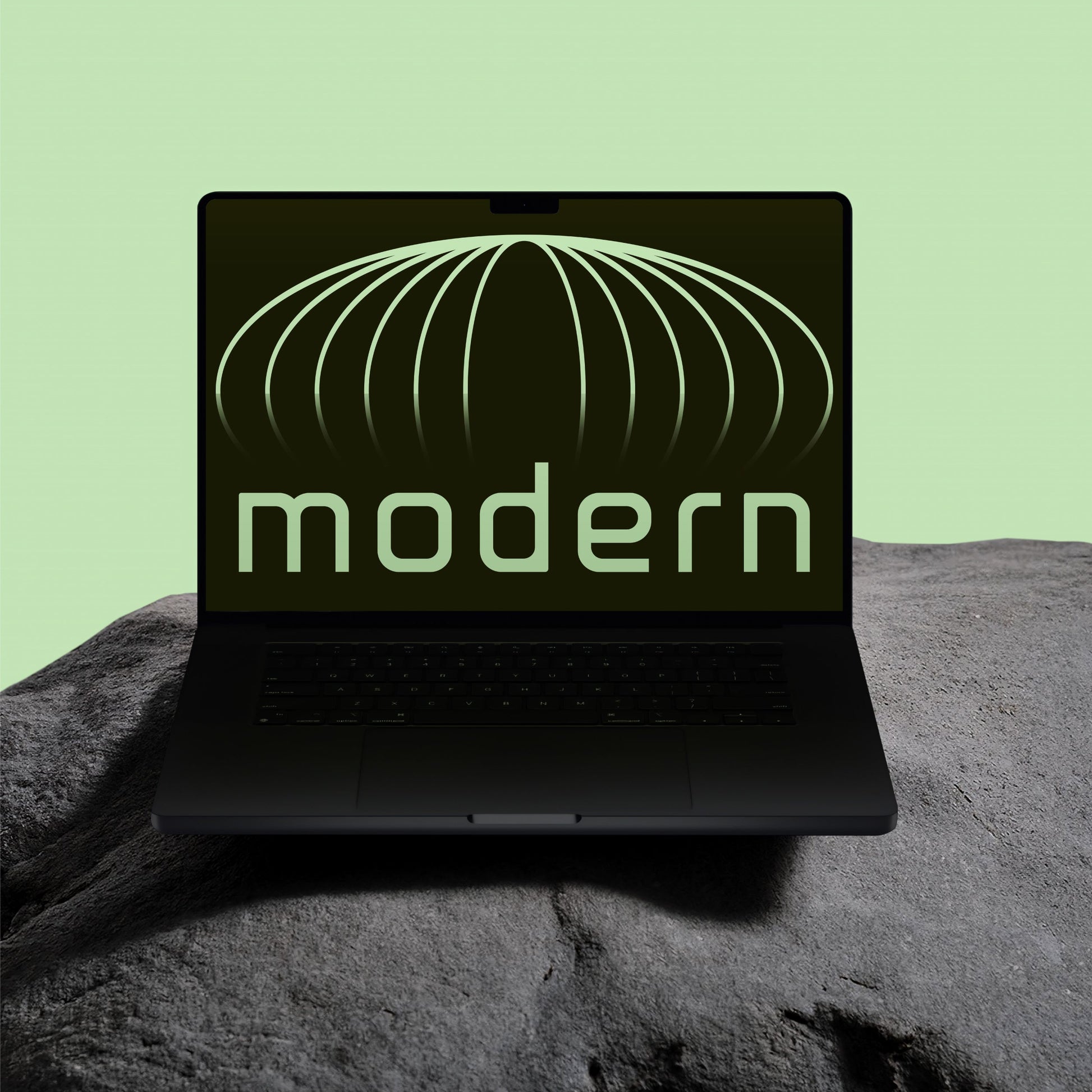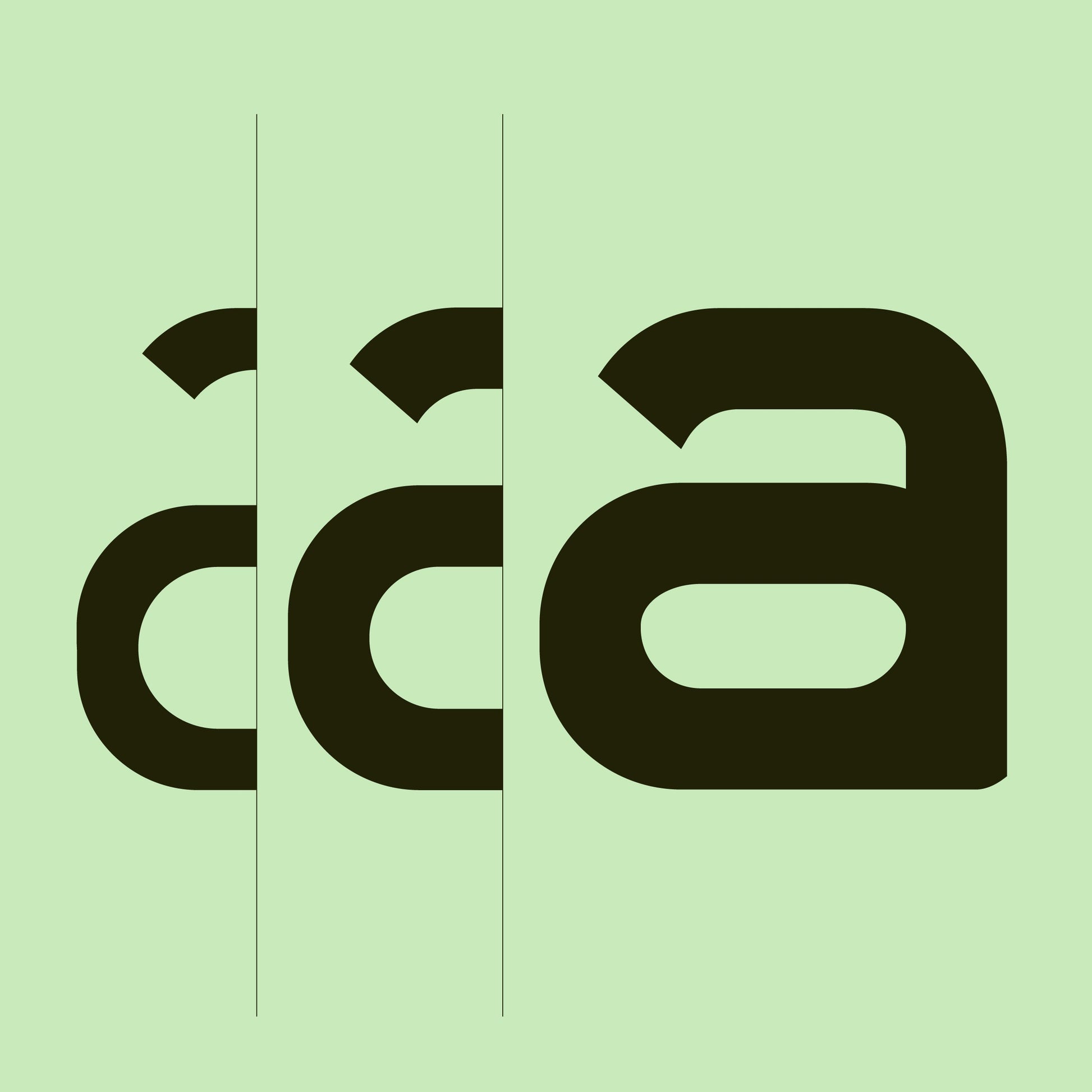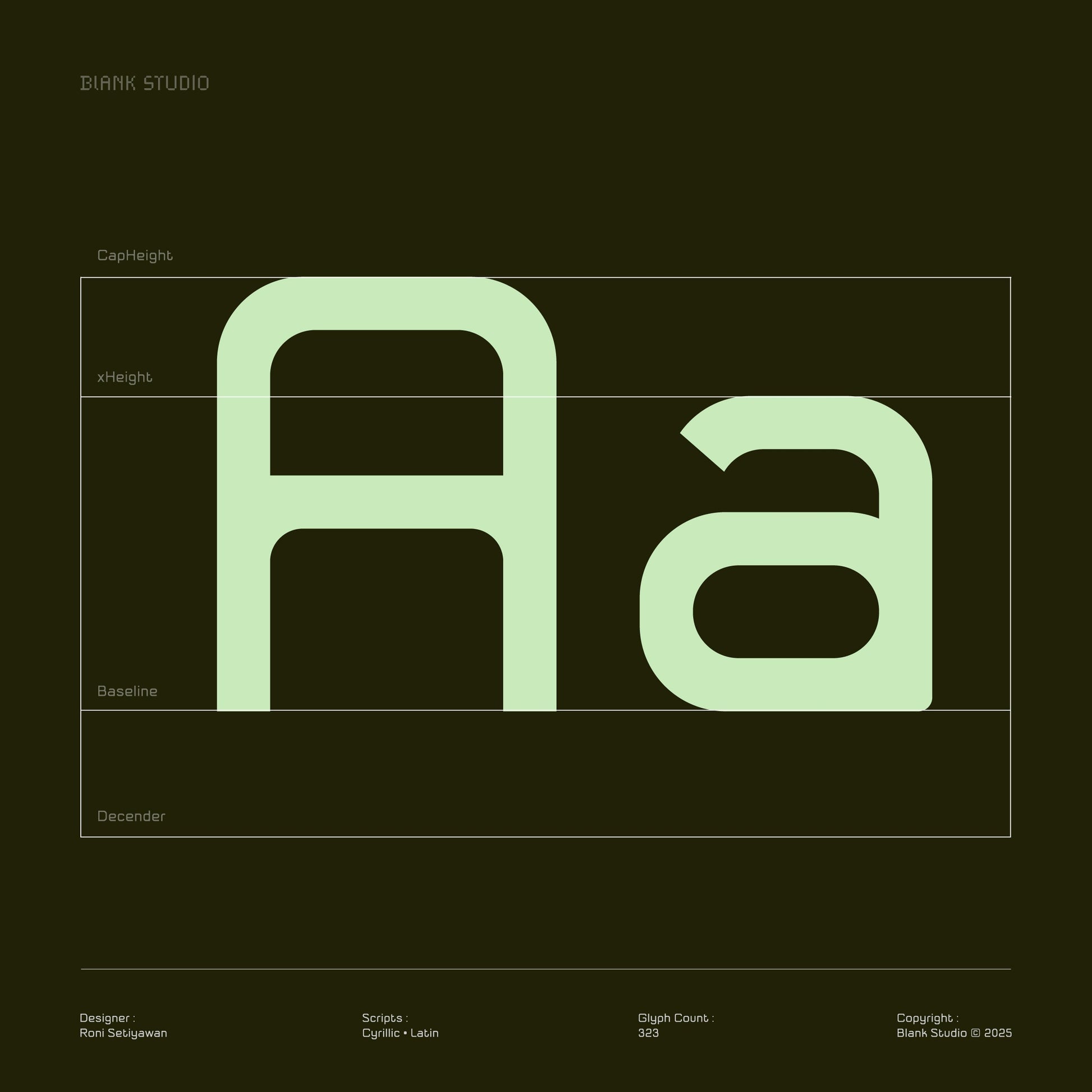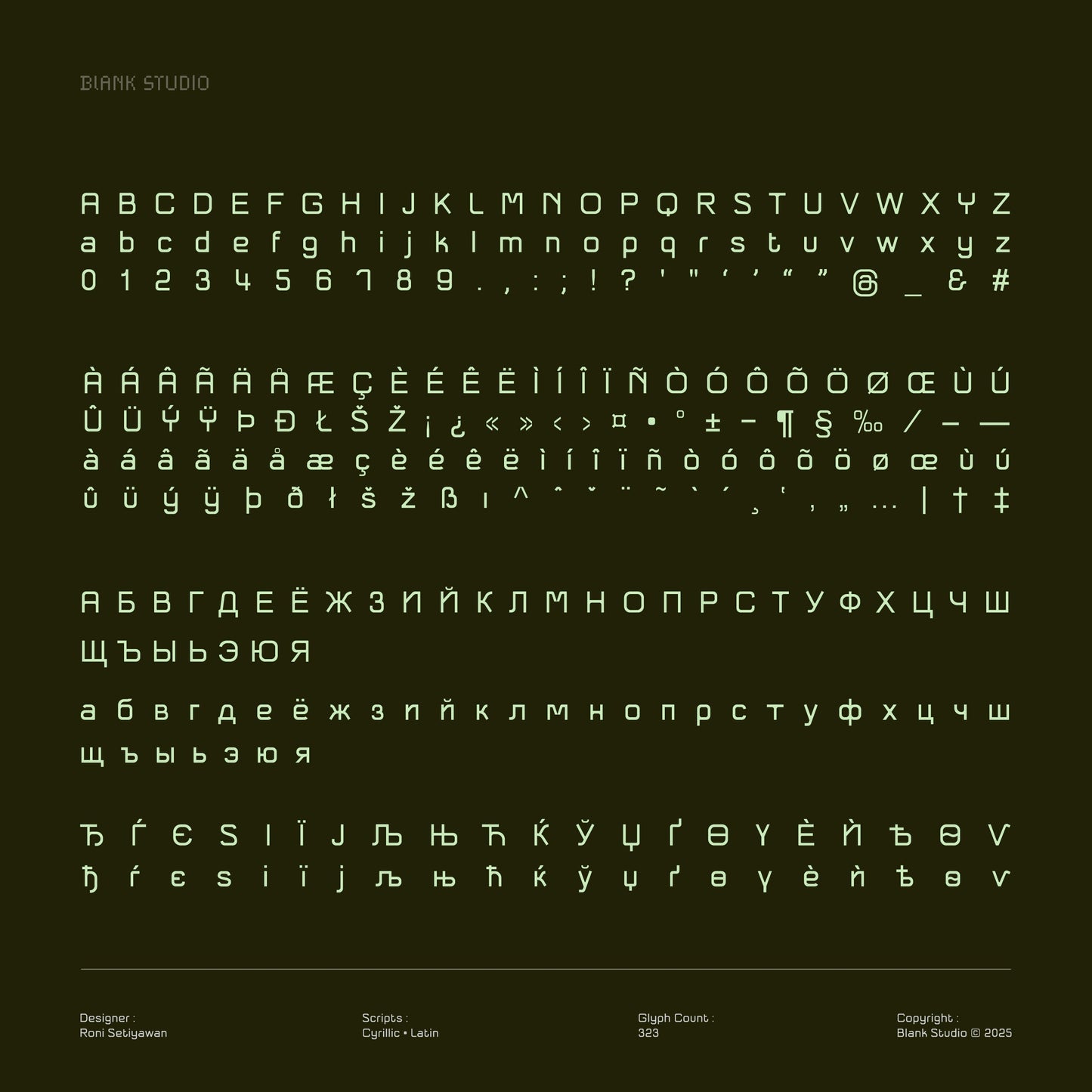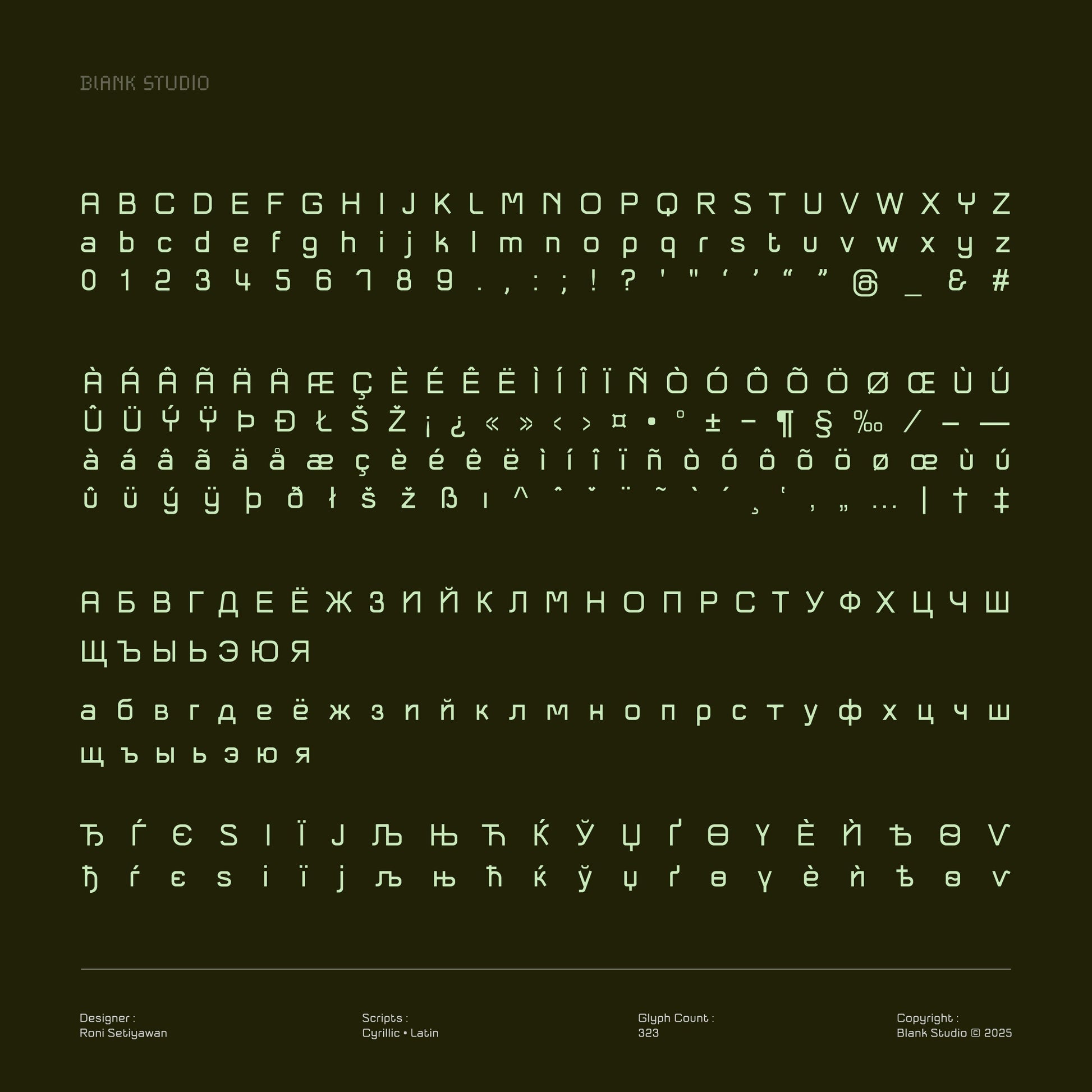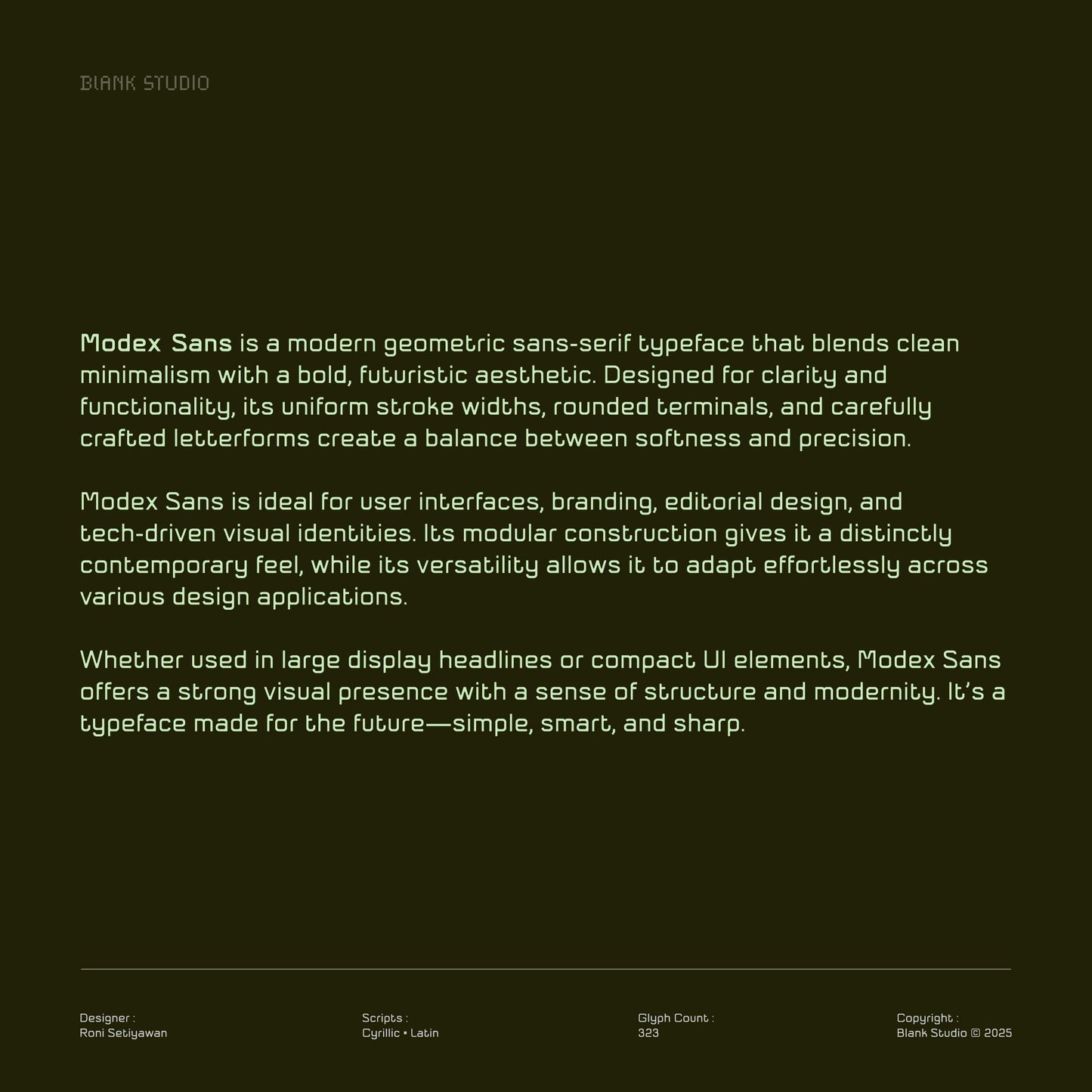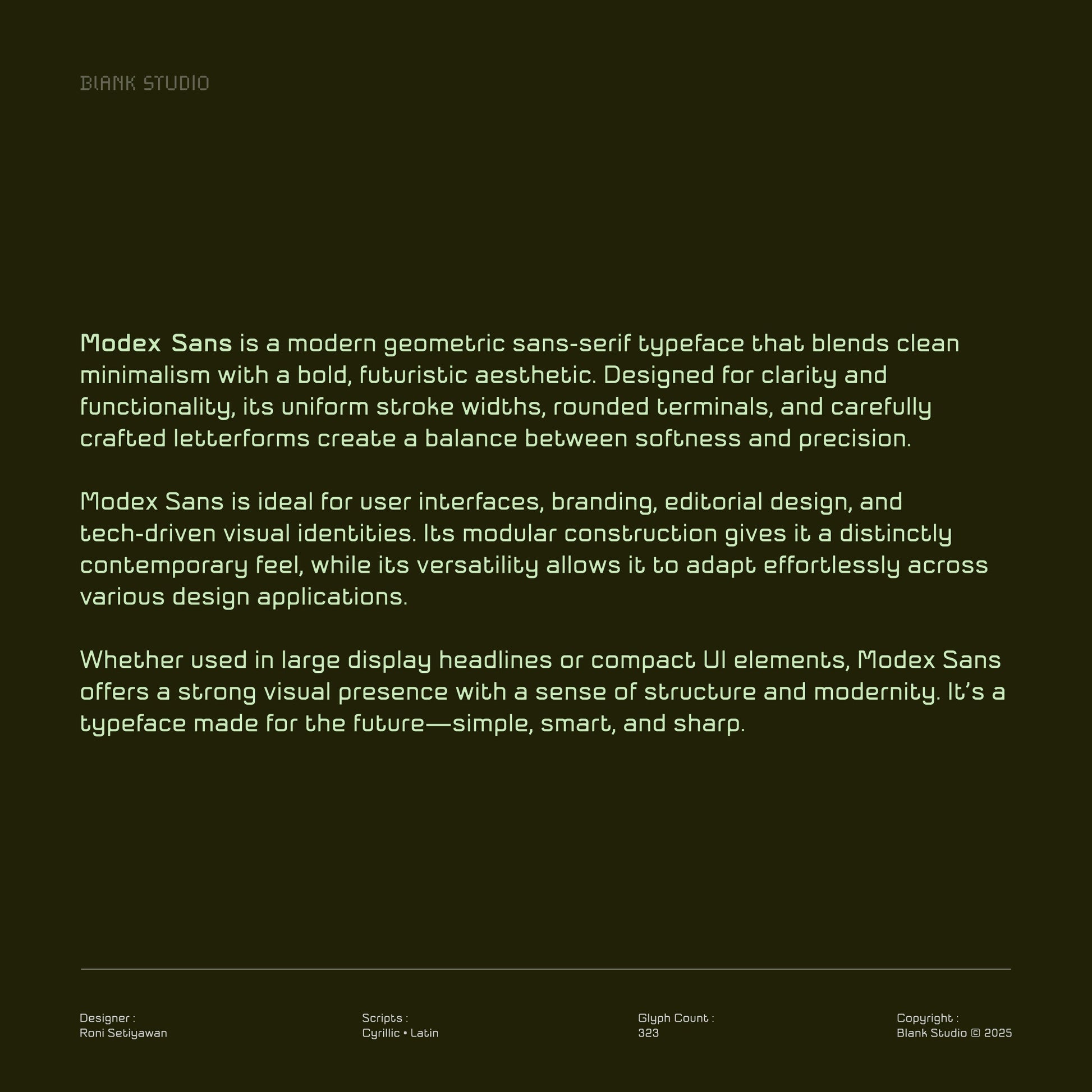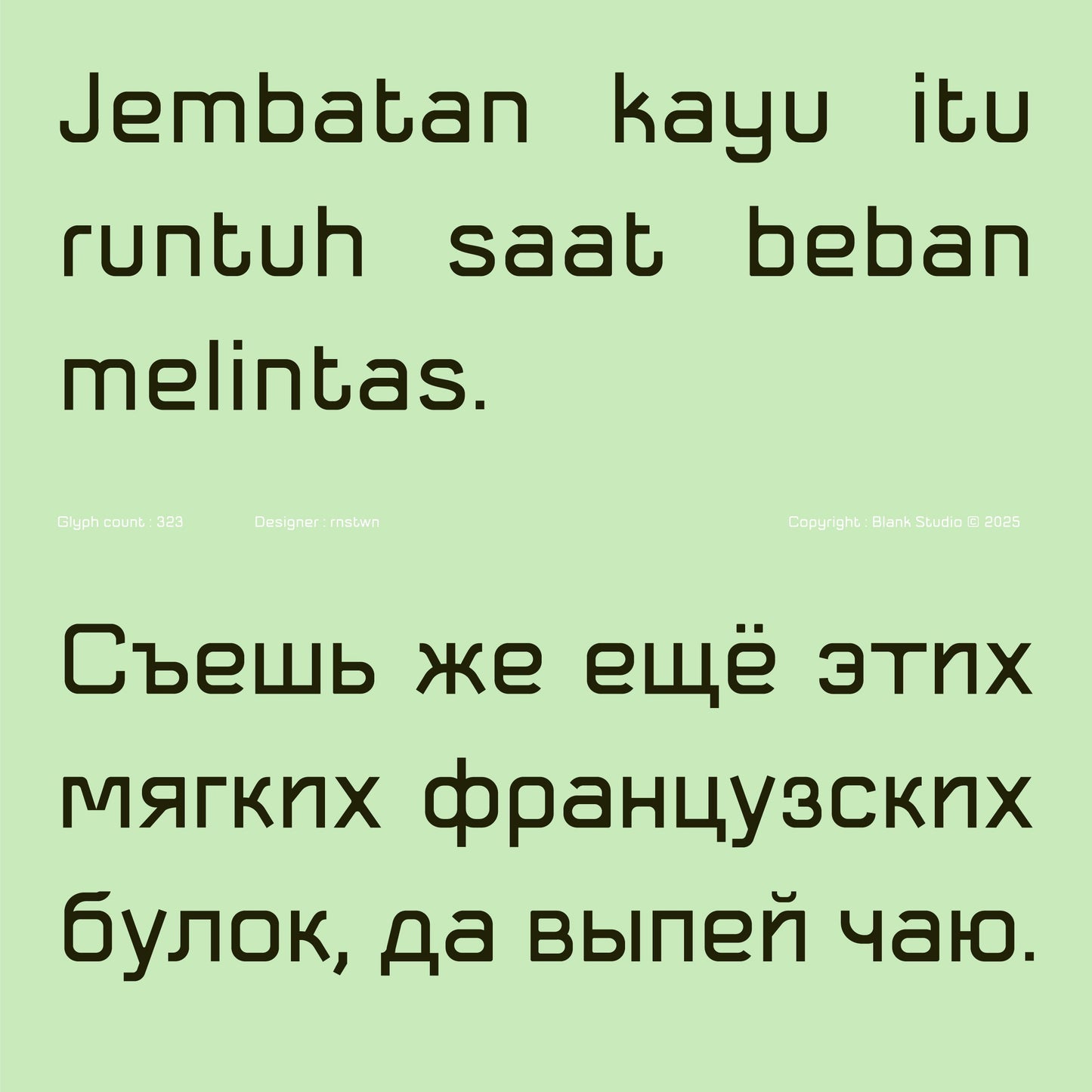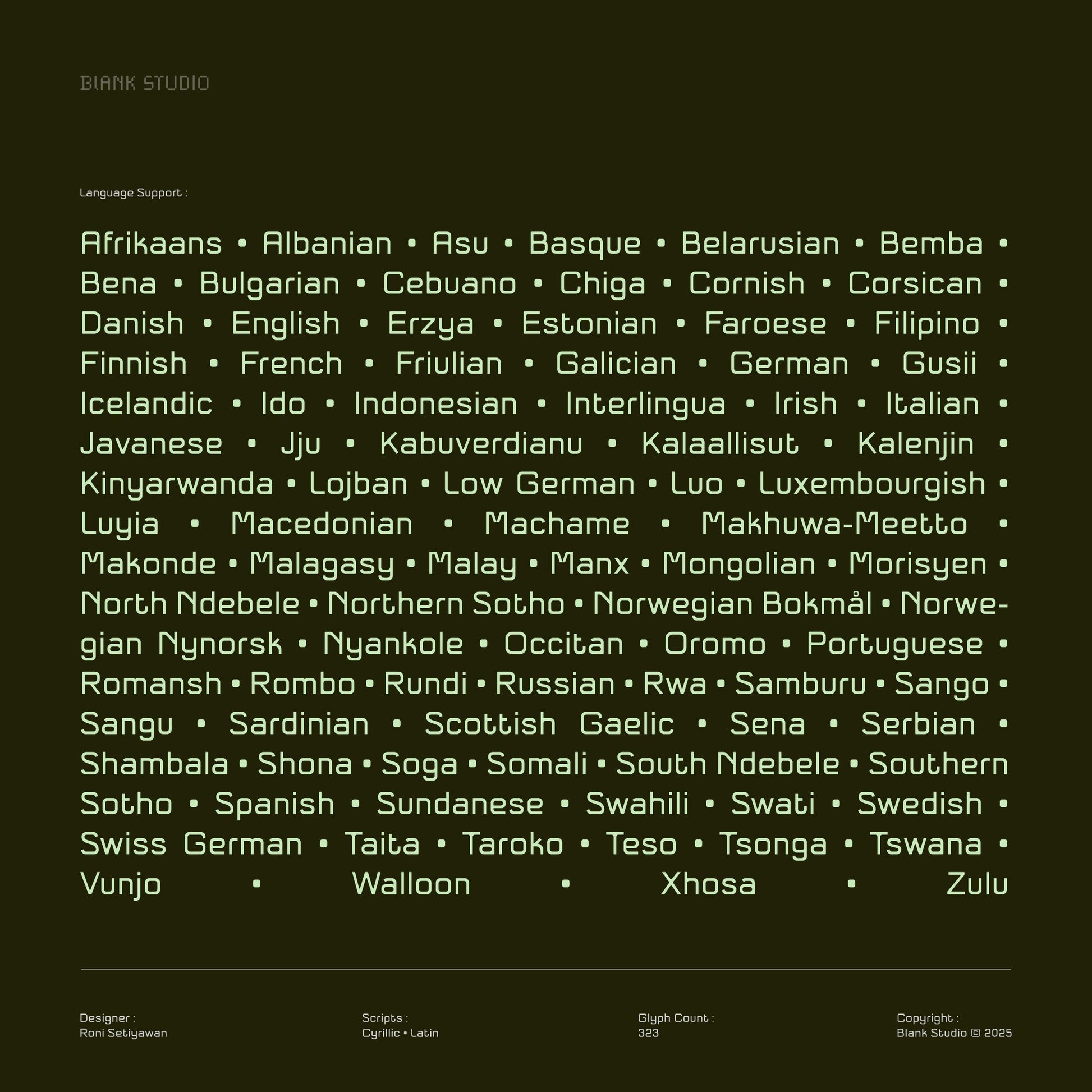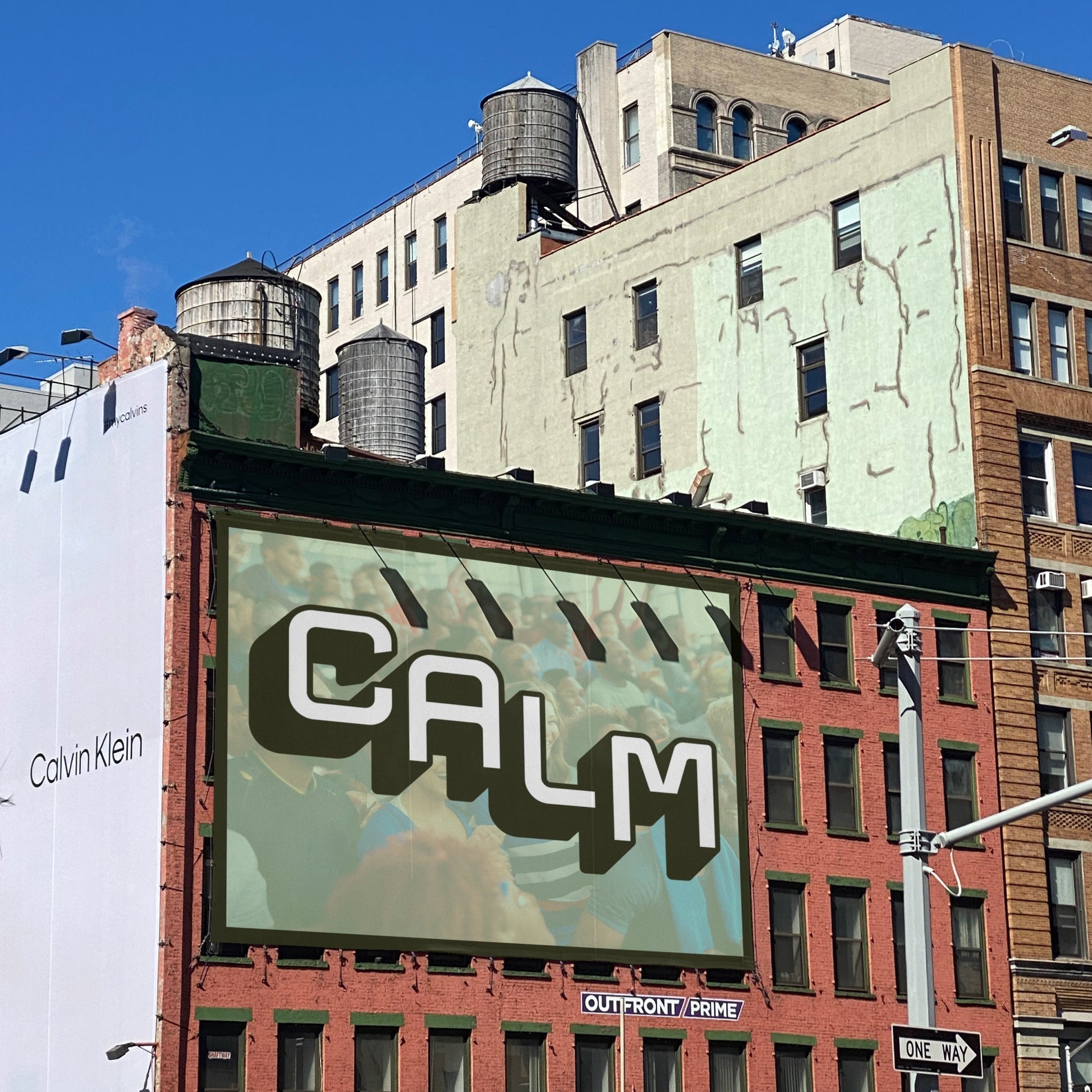
Modex Sans is a modern geometric sans-serif typeface that blends clean minimalism with a bold, futuristic aesthetic. Designed for clarity and functionality, its uniform stroke widths, rounded terminals, and carefully crafted letterforms create a balance between softness and precision. Modex Sans is ideal for user interfaces, branding, editorial design, and tech-driven visual identities. Its modular construction gives it a distinctly contemporary feel, while its versatility allows it to adapt effortlessly across various design applications. Whether used in large display headlines or compact UI elements, Modex Sans offers a strong visual presence with a sense of structure and modernity. It’s a typeface made for the future—simple, smart, and sharp.